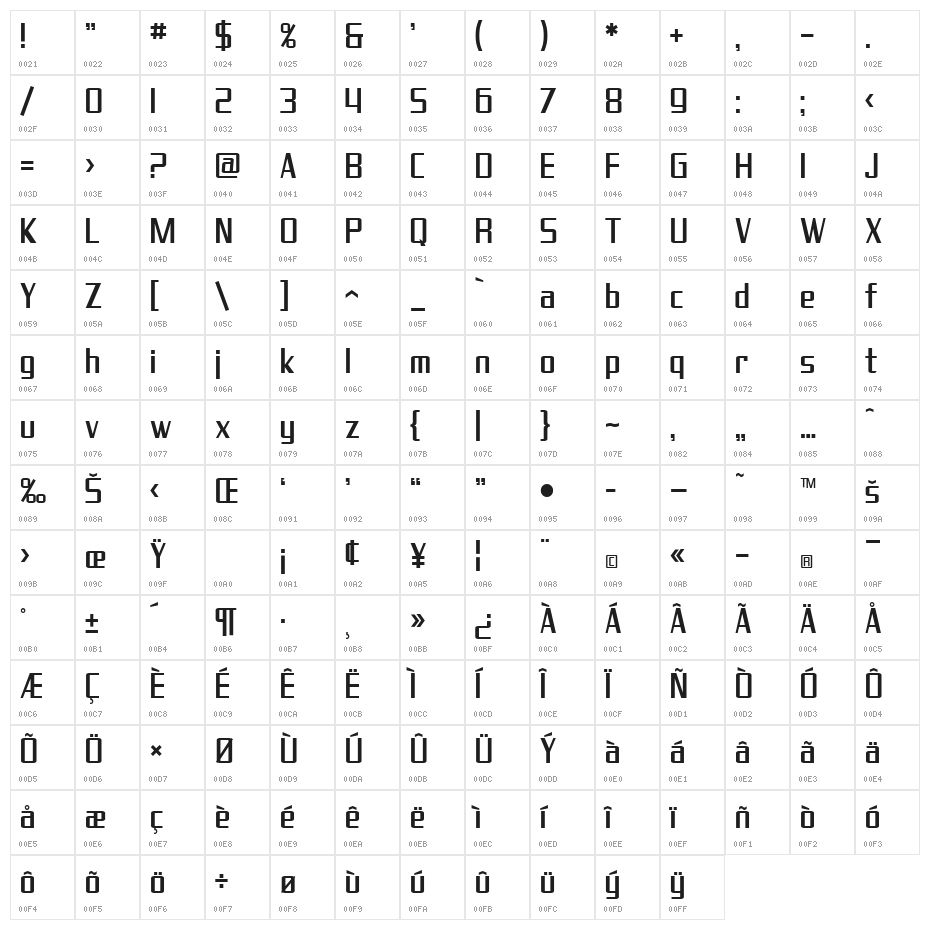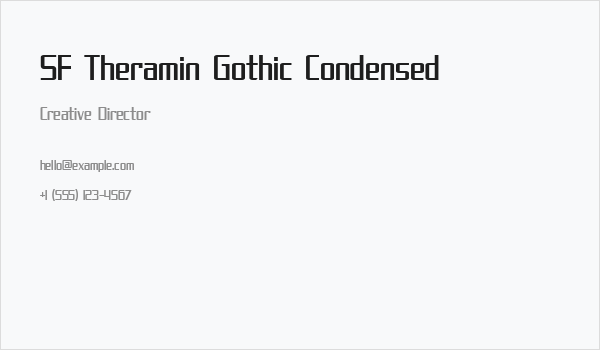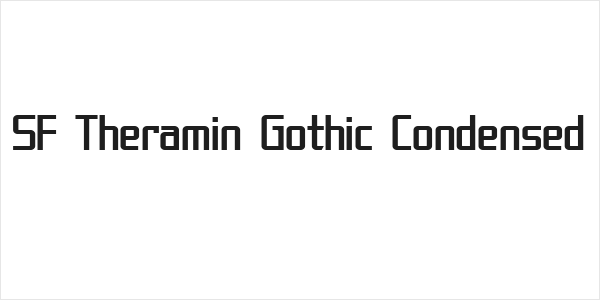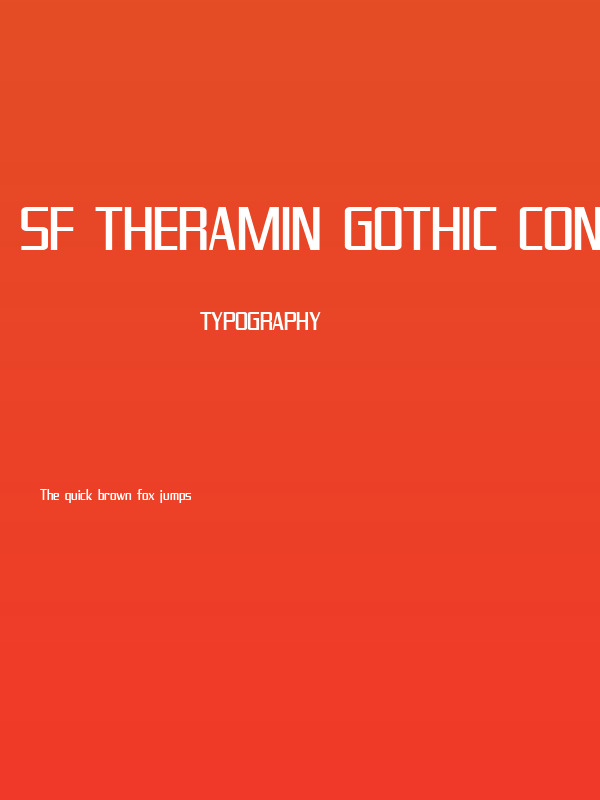
SF Theramin Gothic Condensed Font
SF Theramin Gothic Condensed Description
This font exhibits a modern and sleek design with a condensed structure, making it ideal for space-saving applications. The characters are uniform in height and width, providing a clean and organized appearance. The geometric shapes and straight lines give it a futuristic feel, while the consistent stroke thickness ensures readability. The uppercase and lowercase letters maintain a harmonious balance, and the numerals are clear and distinct. Special characters are well-integrated, enhancing the font's versatility for various design needs.
Proposed ProjectsIdeal for technology branding, modern advertising, and editorial headlines.